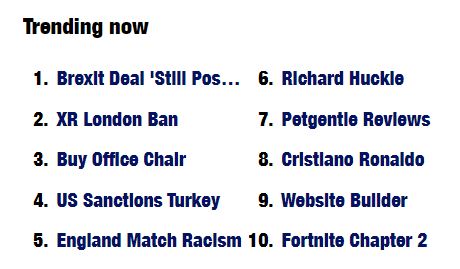
Font Change
Hi, i've opened yahoo this morning to find my fonts changed to a really cold condensed font. this is the same in my mail as well.
has anyone else experienced this ?
Looks normal on my end. Looks like a browser issue. Did you try to restart your computer?